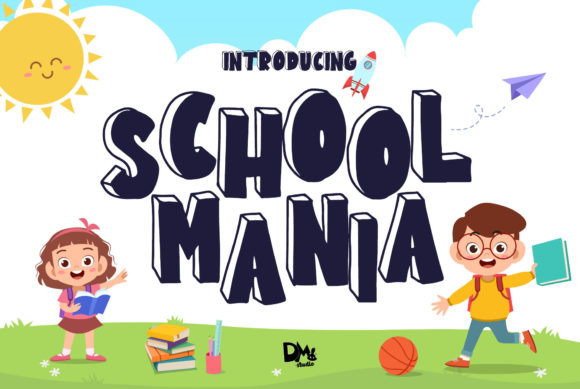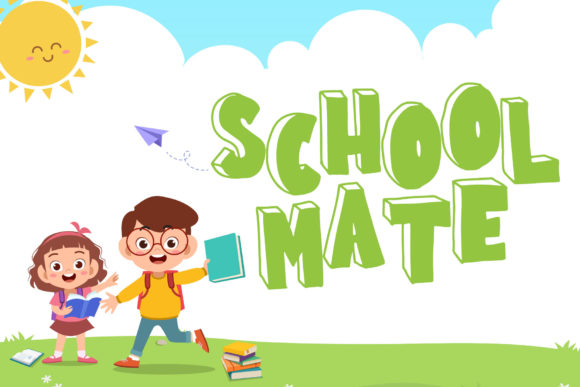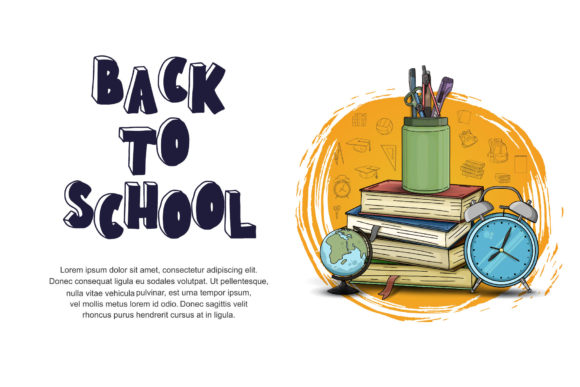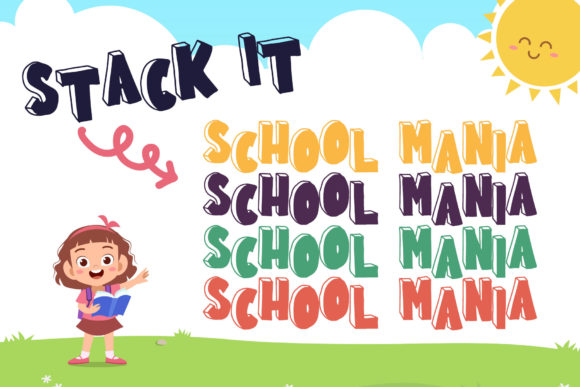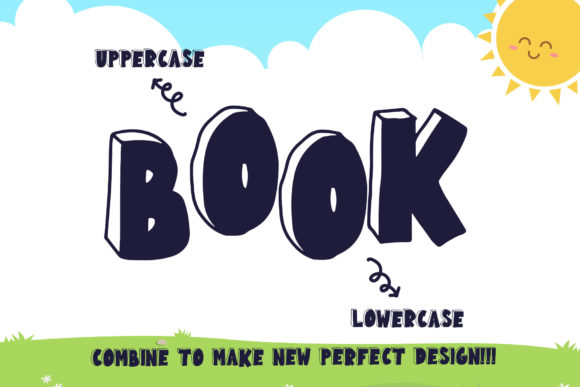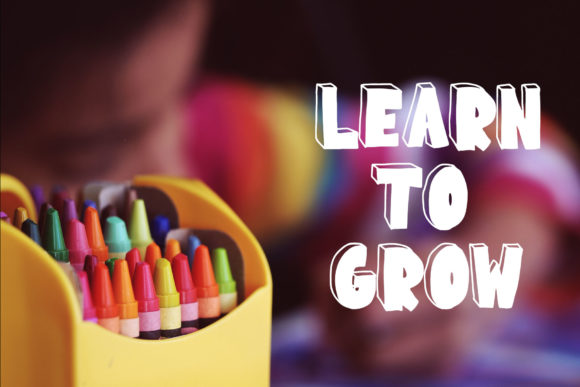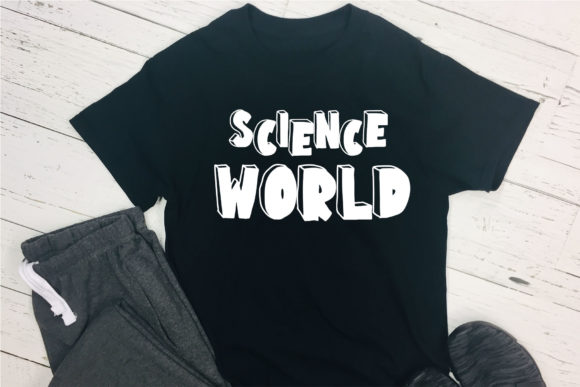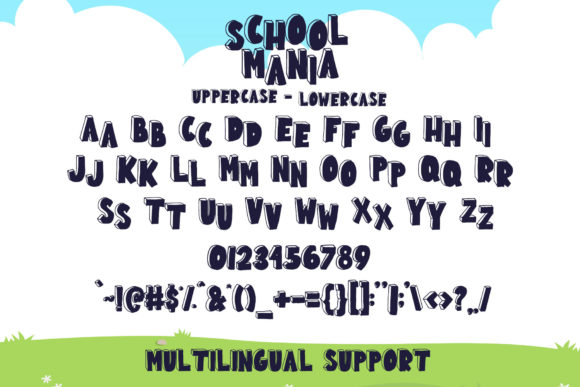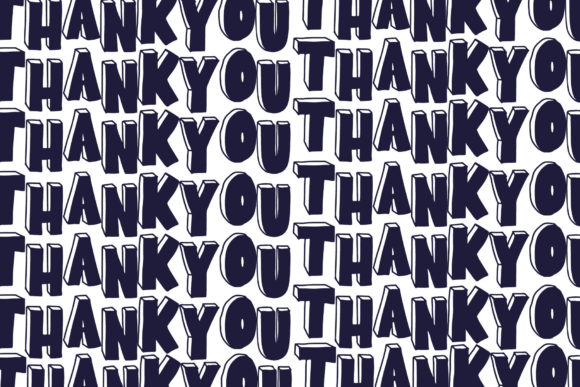
HomeScript FontsSchool Mania Font Script Fonts School Mania Font FacebookXPinterestWhatsApp School Mania Font Poster 2 School Mania Font Poster 3 School Mania Font Poster 4 School Mania Font Poster 5 School Mania Font Poster 6 School Mania Font Poster 7 School Mania Font Poster 8 School Mania Font Poster 9 About School Mania Font School Mania is a playful and quirky display font. Fall in love with its fun & friendly style! DOWNLOAD NOW People also explored Dinosaur Font Tricky Ghost Font Quiora Brush Font Shopie Font Fettrix Font Spoon Lemon Toffy Font Christty Font Harrier Font 355 0 TagsSchool Mania Font Previous articleFonument FontNext articleMartina Font LEAVE A REPLY Cancel reply Comment: Please enter your comment! Name:* Please enter your name here Email:* You have entered an incorrect email address! Please enter your email address here Website: Save my name, email, and website in this browser for the next time I comment. Personal Use Free Boston Traffic Personal Use Free Read more about this font Dakwart Letter Personal Use Free Read more about this font Miracles Personal Use Free Read more about this font Unlock Endless Creativity with the FREE September Clipart Huge Bundle (Valued at $700!) Personal Use Free Read more about this font BLOG Top 10 Handwritten Fonts That Elevate Your Designs Top 10 Handwritten Fonts That Will Elevate Your Designs Handwritten fonts bring a warm, personal touch to every creative project. Whether you're designing logos, invitations,... Free vs Paid Fonts: Why Investing in Premium Fonts Is Worth It How to Cut Any Font on Cricut: Convert a Font to SVG (Free) Top 7 Google Fonts Alternatives for Faster and Privacy-Friendly Web Design (2025)